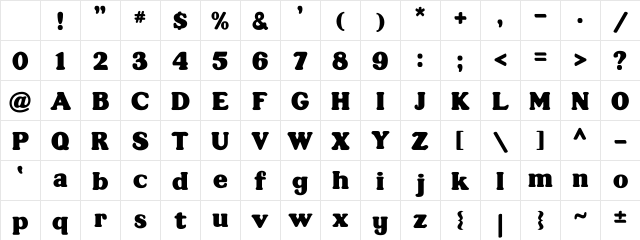
Aurelia is built around its visual character rather than neutral utility - its distinctive forms are designed to make an impression at display sizes.
Font Pairing: Pair with a clean neutral sans-serif for body copy to let Aurelia's character lead without overwhelming the composition.
Pro Tip: Use Aurelia exclusively at display sizes - it was designed to be seen, not read at length. Let a neutral companion handle body copy.